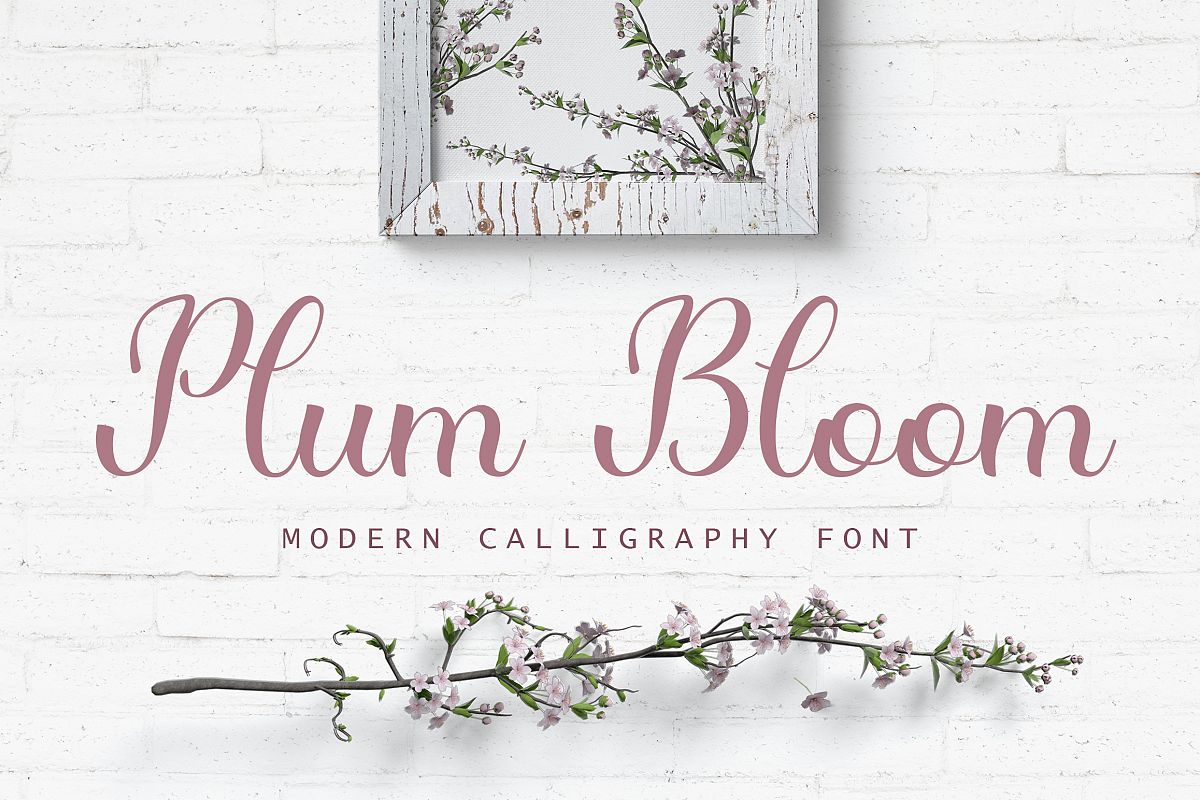
Plum Bloom - handwritten calligraphy font
PlumBloom-Script
“Plum Bloom” is a modern calligraphy font with smooth lines and dynamic contrast. So beautiful for logo, wedding invitation, name tag, title, letterhead, label, badge, quotes, branding materials and more.